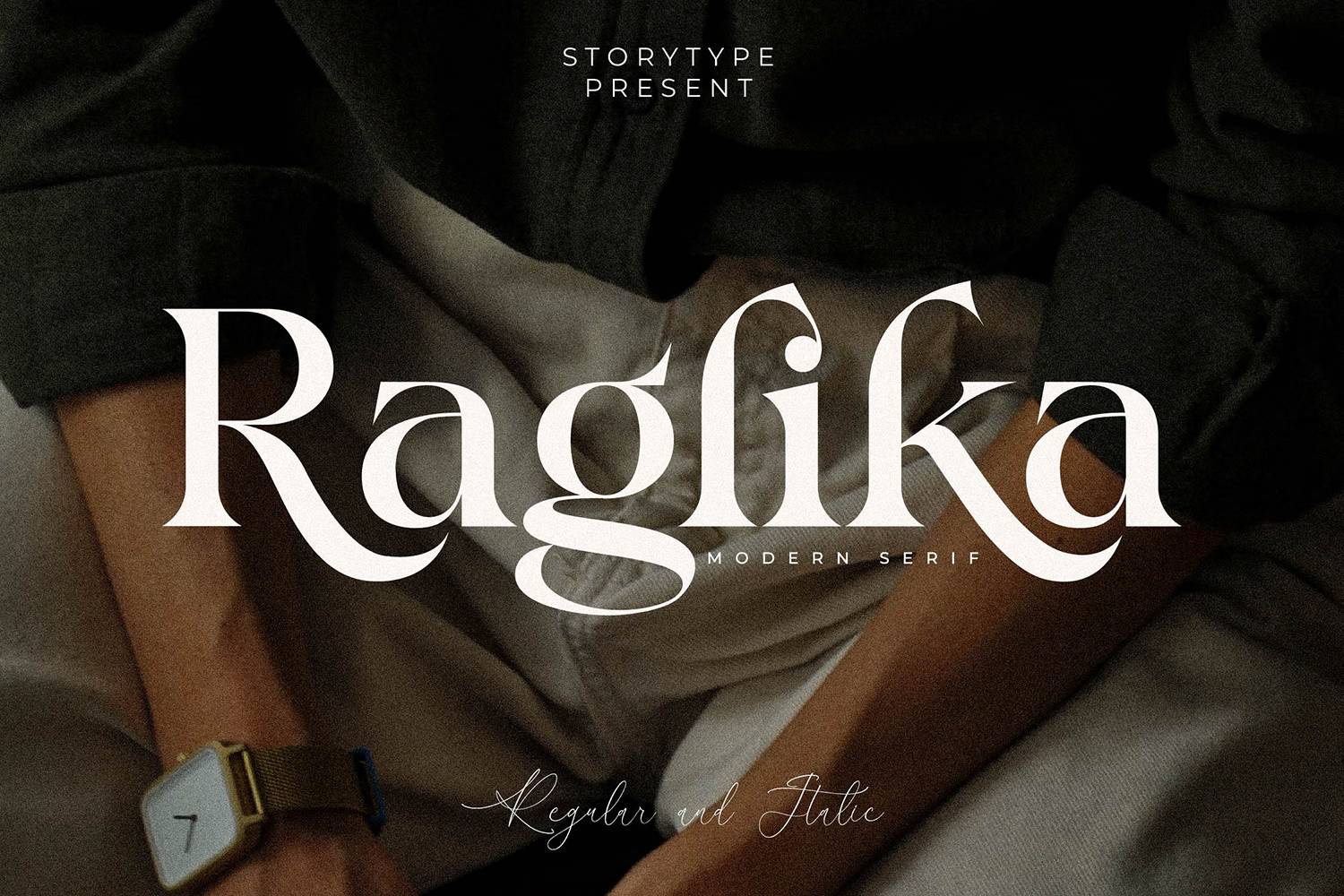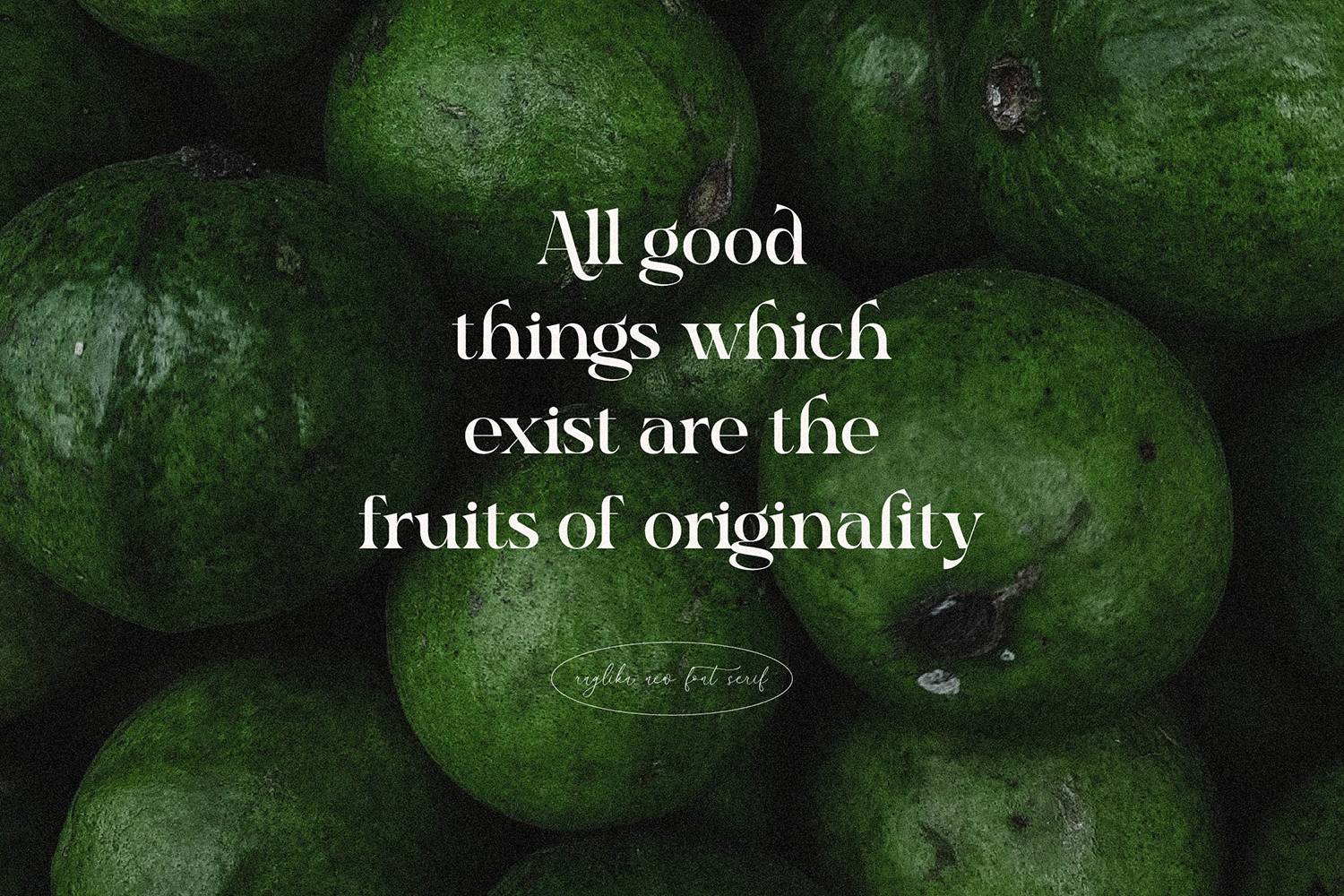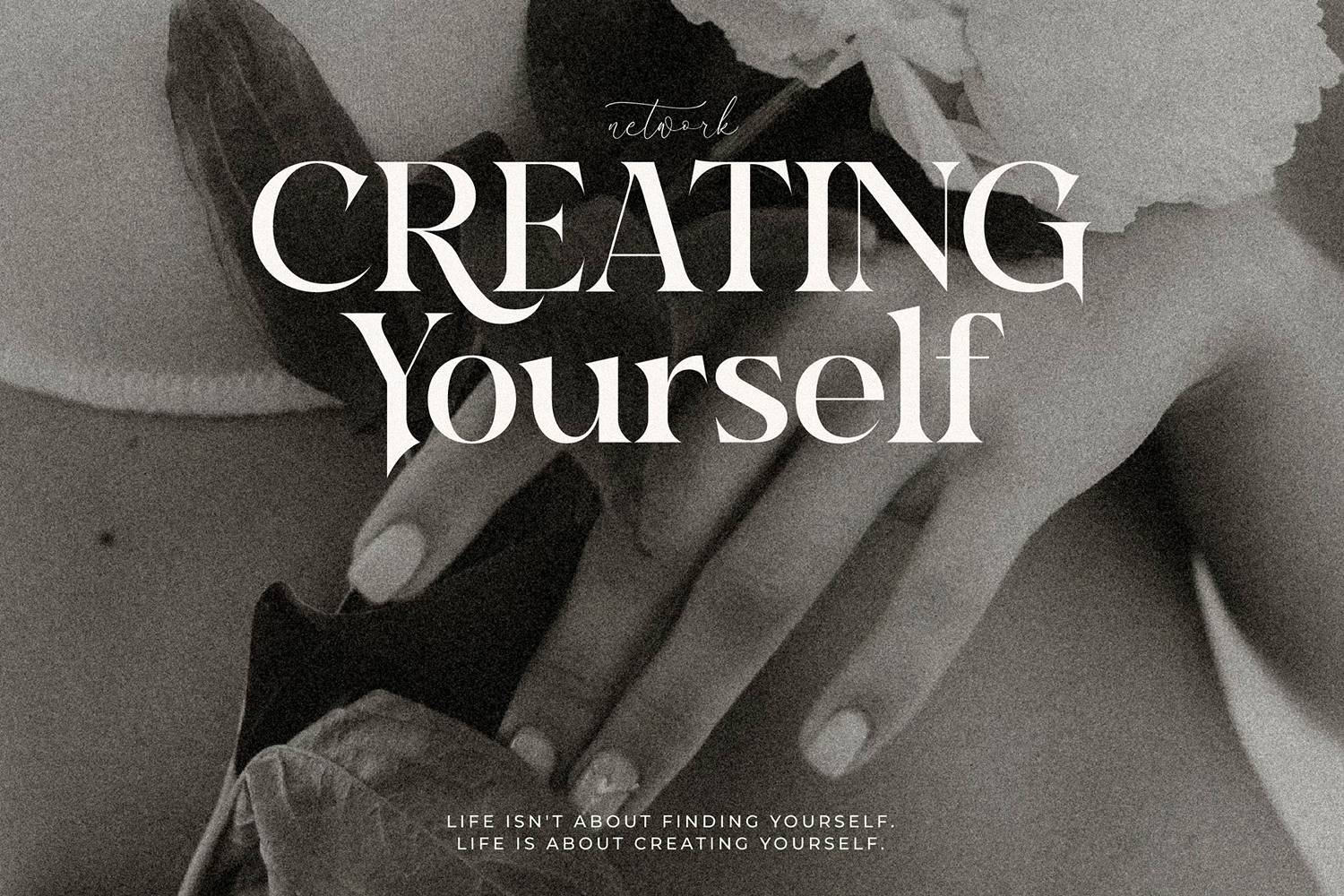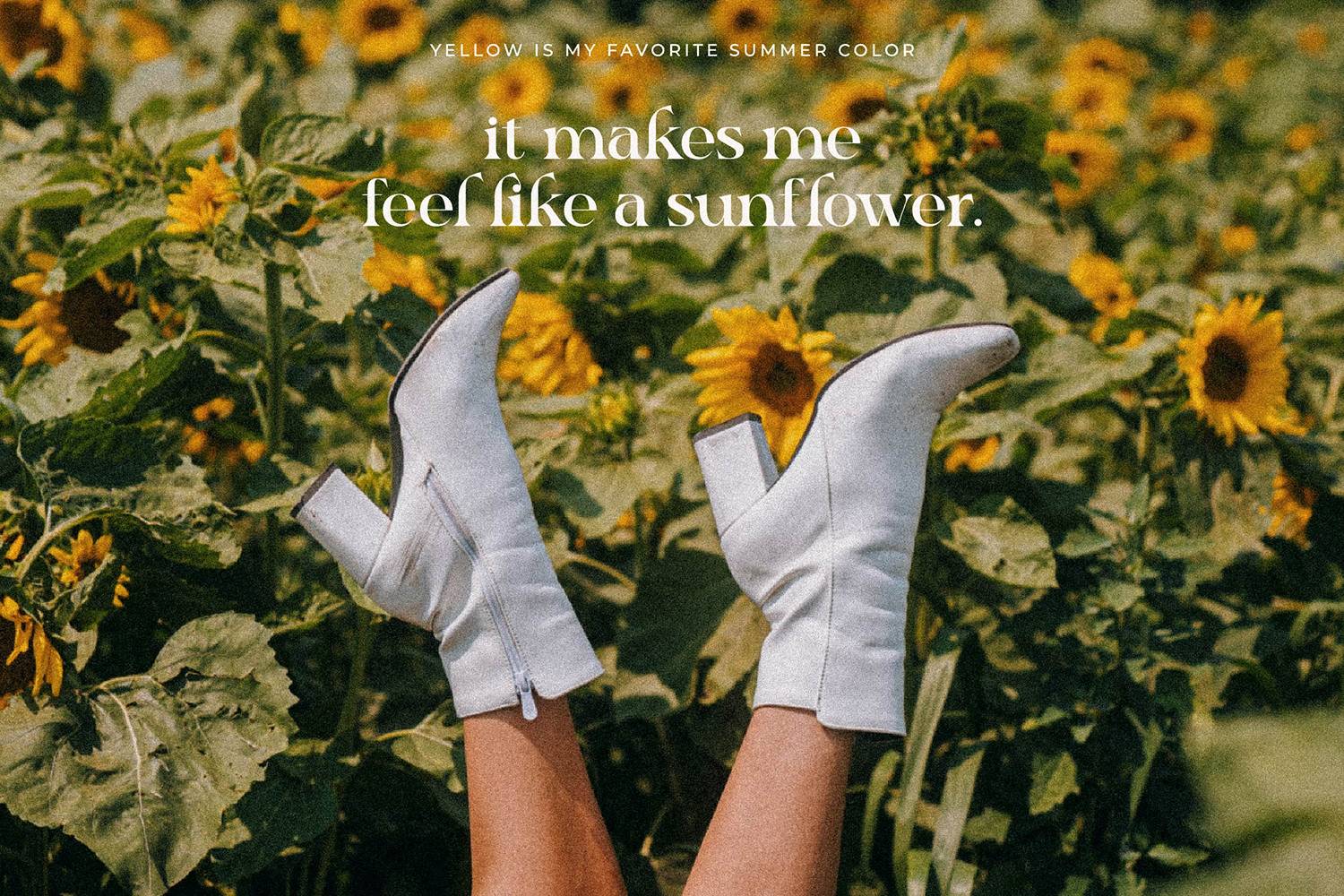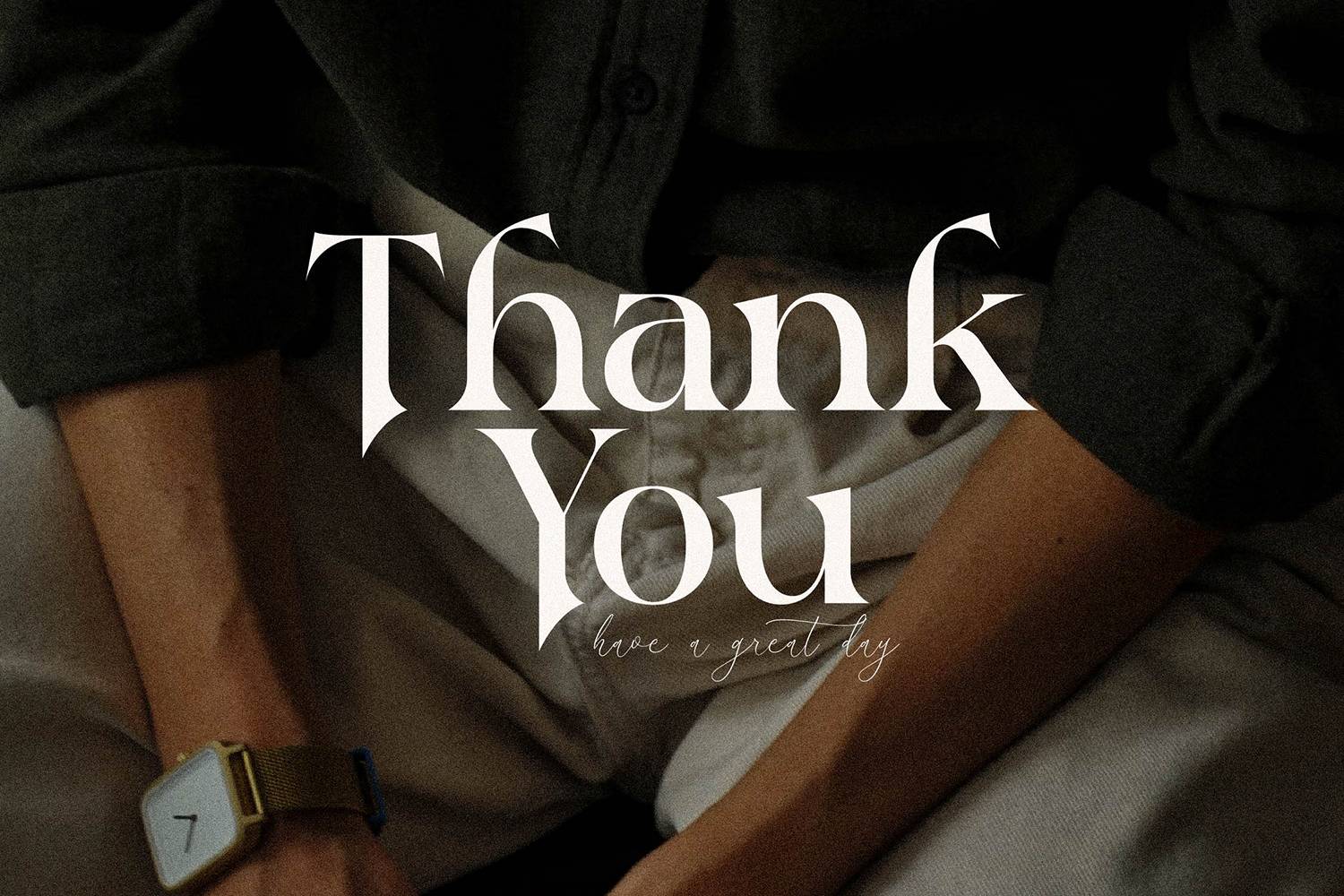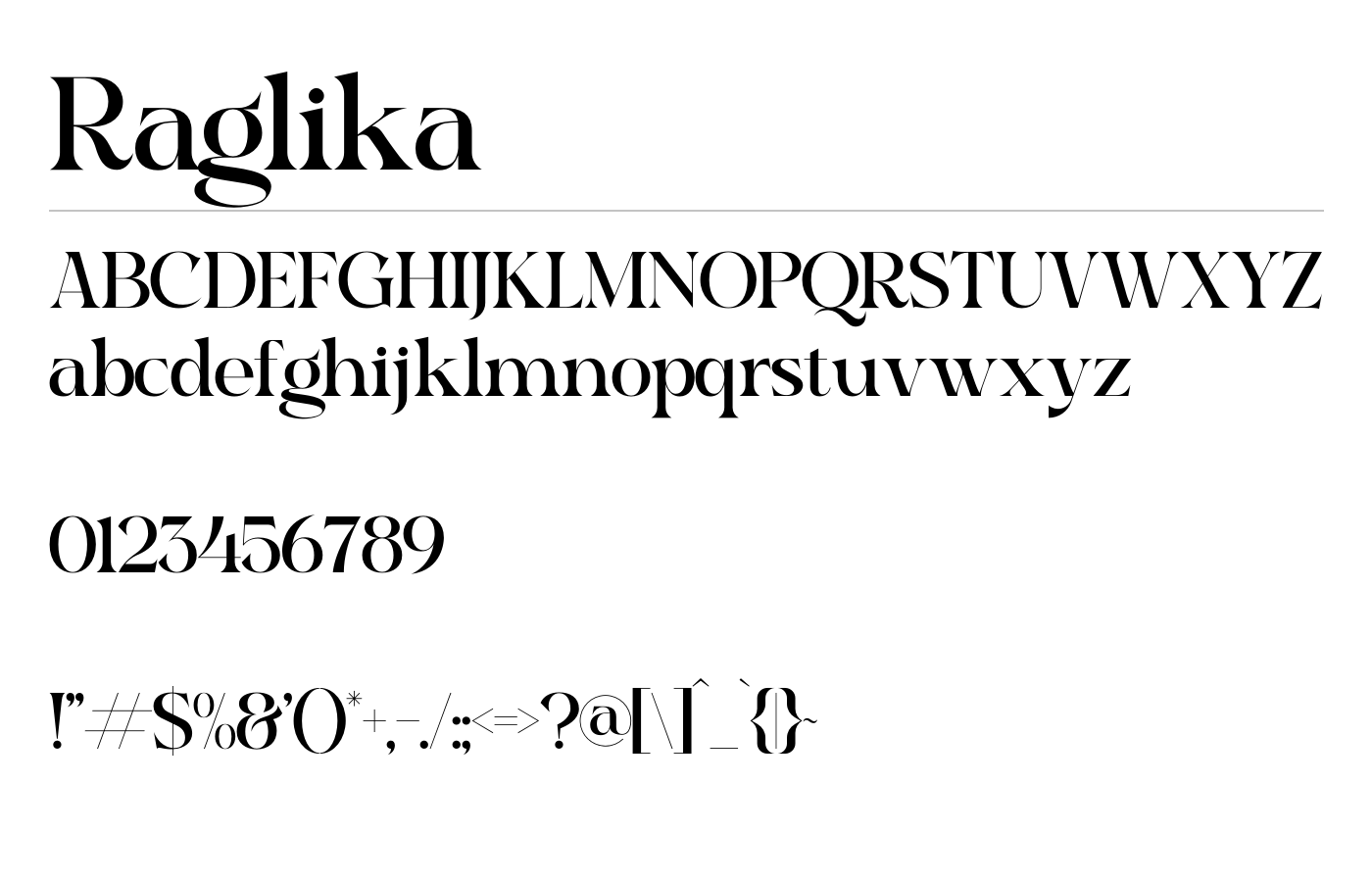
Raglika is an elegant serif font with a high contrast between thick and thin strokes, giving it a sophisticated and modern Didone style. Its refined letterforms feature sharp serifs and unique details like the single-story lowercase 'a' and distinctive 'g', making it a perfect choice for luxury branding, editorial headlines, and fashion-focused designs that seek a timeless yet contemporary look.
Raglika Font